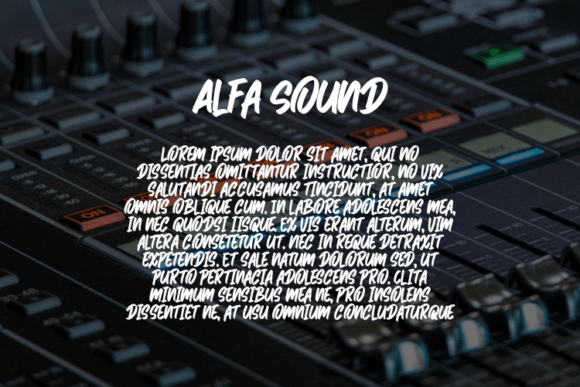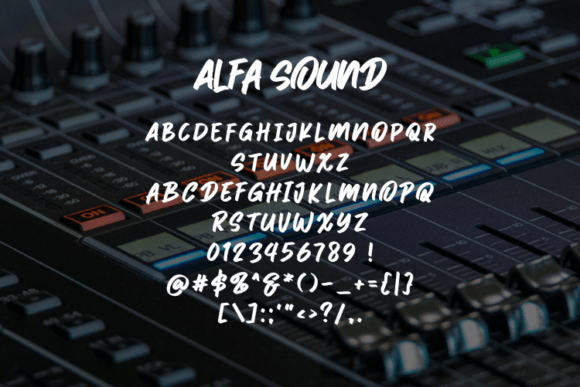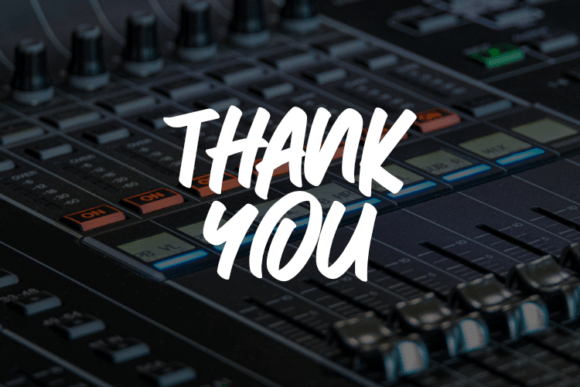
Unleash Your Creativity with Alfa Sound Font
The moment you sit down with a blank canvas, ideas start pouring in, and your imagination runs wild. You envision vibrant colors, bold designs, and a style that truly reflects your artistic voice. But, what if your font choices were holding you back? That’s where Alfa Sound Font comes in – a game-changing typography that’s designed to elevate your creative vision.
Alfa Sound Font Key Features
- Font Family: Alfa Sound, a unique sound font designed for music and audio production.
- Unique Characteristics: Alfa Sound Font features a vast range of sounds, including acoustic instruments, electronic elements, and FX, making it a versatile tool for music producers and sound designers.
Alfa Sound Font Review
I recently had the chance to experiment with the Alfa Sound Font, and I’m here to share my honest thoughts. While it’s not a perfect font, I found it to have some great qualities that make it worth considering.
- Unique sound: The font has a distinctive sound to it, making it stand out from more traditional fonts.
- Customization options: The font comes with a range of customization options, allowing you to adjust the sound to your liking.
- Wide range of applications: The font can be used for a variety of applications, from music to multimedia projects.
- Compatibility issues: I experienced some compatibility issues with certain software and operating systems.
- Limited expressiveness: While the font has a unique sound, it can feel a bit limited in terms of expressiveness.
- Requires practice: To get the most out of the font, you’ll need to practice using it, which can be a bit time-consuming.
Overall, I’d say the Alfa Sound Font is a great option for those looking for a unique sound in their multimedia projects. While it has some limitations, the customization options and wide range of applications make it a worthwhile investment. With a bit of practice, you can unlock the full potential of this font and create some amazing sounds.
Tips for Getting the Most Out of Alfa Sound Font
Here are some tips to help you get the most out of Alfa Sound Font:
- Use Alfa Sound Font for bold headings and titles.
- Combine Alfa Sound Font with other fonts for a unique and creative look.
- Experiment with different font sizes and colors to add emphasis and visual interest.
Alfa Sound Font is perfect for:
- Music-related designs and graphics.
- Edgy and trendy branding and marketing materials
Alternatives to Alfa Sound Font for Designers
Arial Black is a sans-serif font that is often used in digital designs, especially in headings and titles. It is a popular alternative to Alfa Sound Font due to its clean and modern look.
When to use: Use Arial Black for headings and titles in digital designs where a bold and modern look is desired.
Comparison to Alfa Sound Font: Arial Black has a more subtle and elegant look compared to Alfa Sound Font’s bold and edgy style.
Impact is a sans-serif font that is known for its bold and condensed style, making it perfect for headings and titles. It is a great alternative to Alfa Sound Font for designs where a strong and attention-grabbing look is desired.